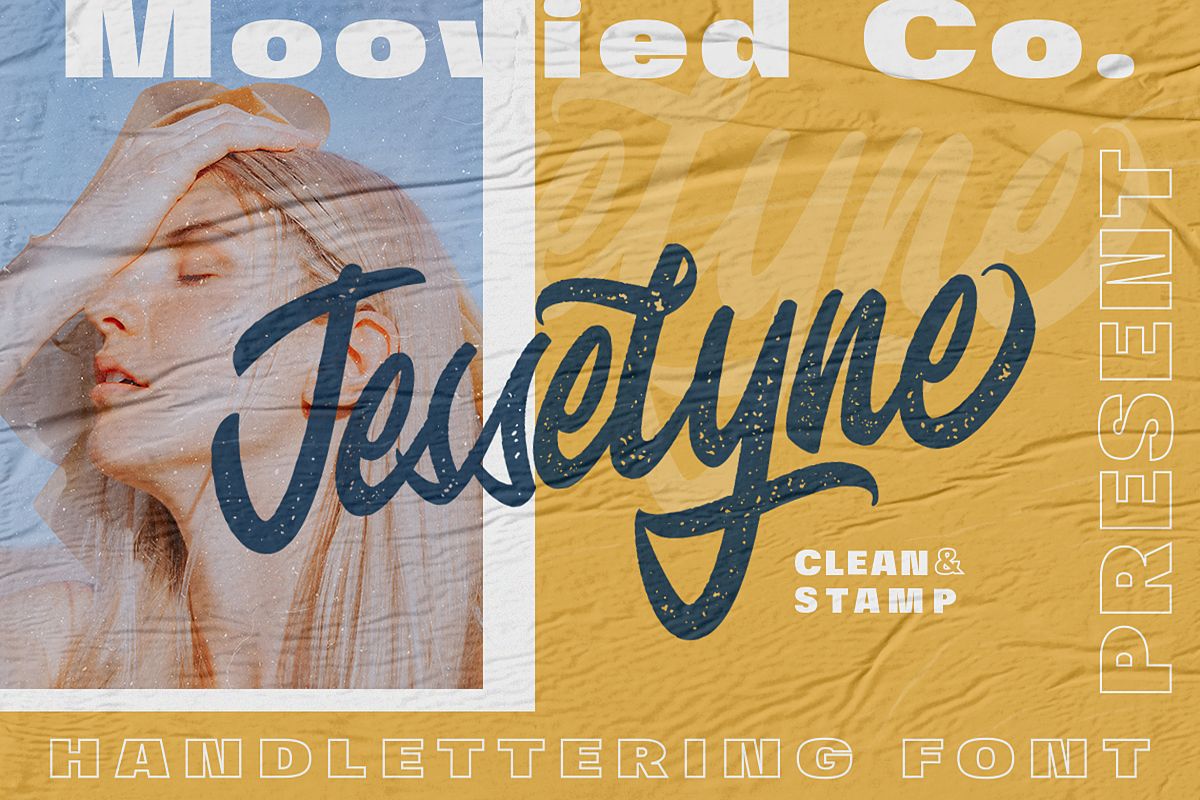
Jesselyne Script Clean & Rough
Jesselyne Script Inspired by urban, streetwear and vintage made with love handlettering style. Ideal for branding, logos, handwriting quotes, product packaging, headers, posters, merchandise, social media Books / Cover titles, special events, etcINCLUDE
• Basic Latin A-Z and a-z
• Symbols
• Stylistic Set
• Multilanguage Support